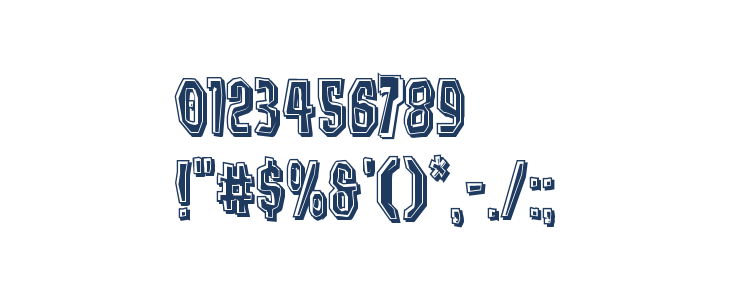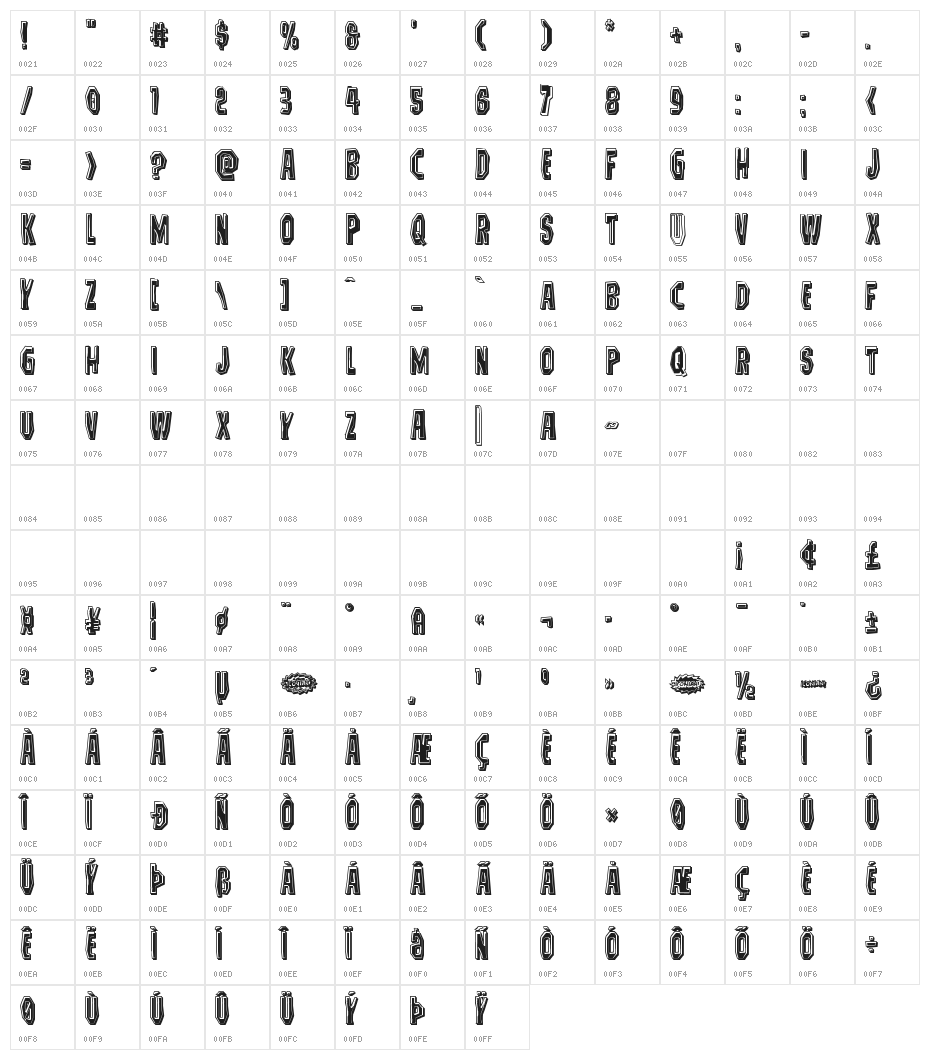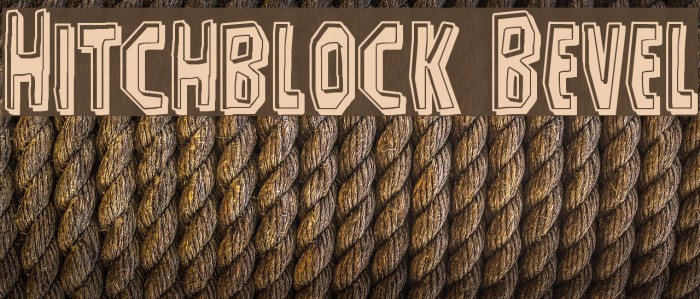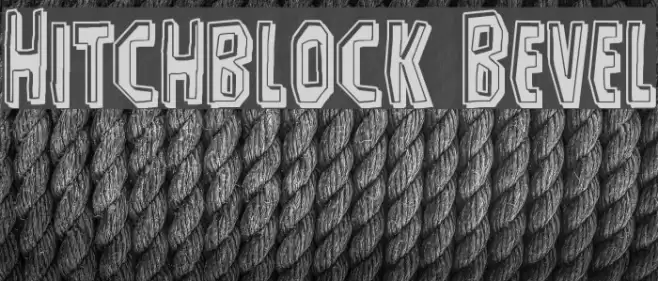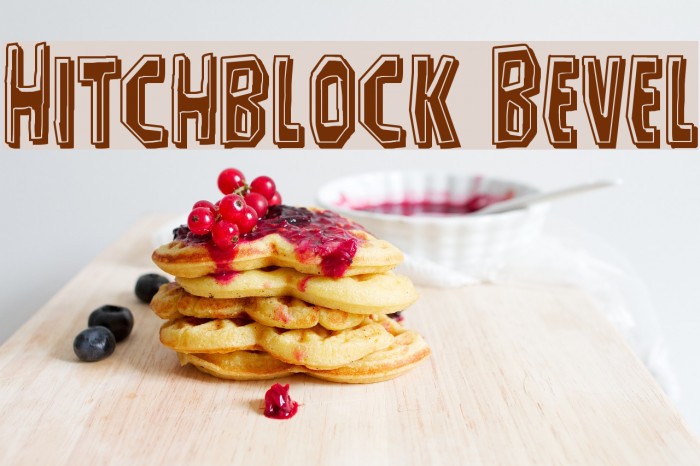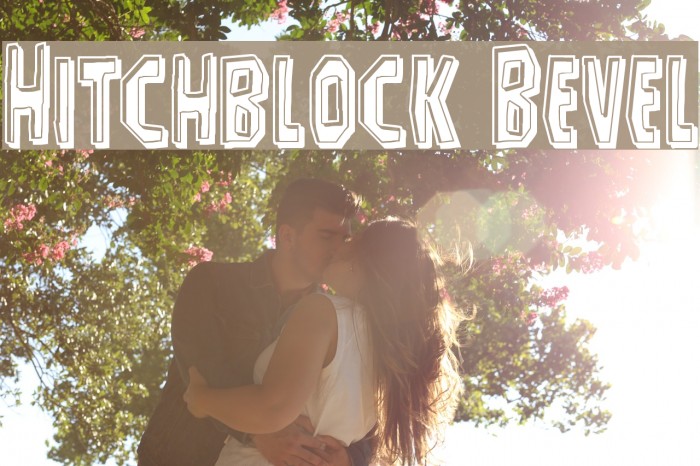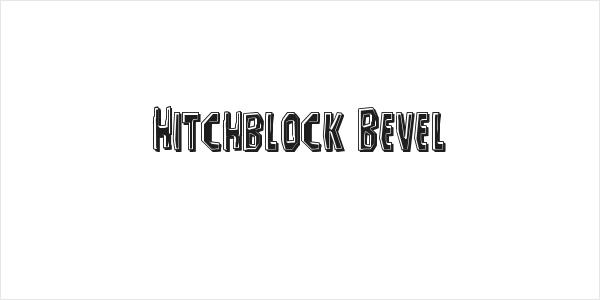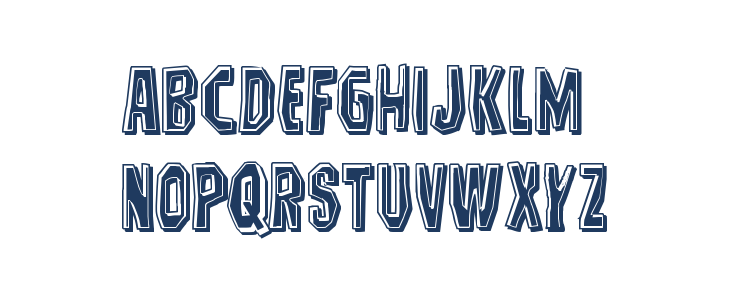
Hitchblock Bevel Font
Hitchblock Bevel Description
This font features a bold, geometric design with a distinct three-dimensional effect created by beveled edges. The characters are uppercase and lowercase letters, numbers, and a variety of special symbols. Each letter is outlined with a thick border, enhancing the boldness and making it stand out. The style is reminiscent of vintage signage, giving it a classic yet playful appearance. The font's unique structure and shadowing effect make it suitable for eye-catching designs.